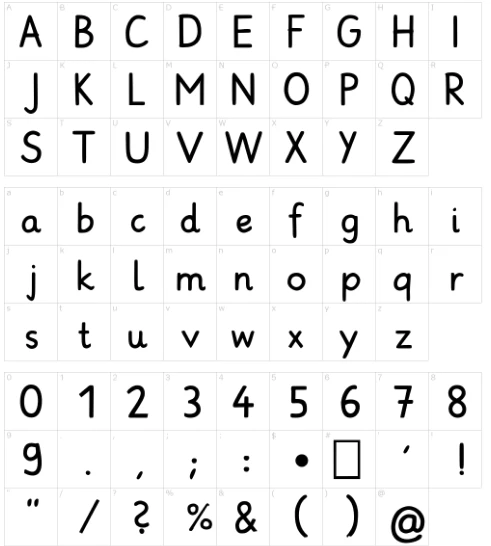
Grundschrift, also known as basis font or ground script, is a reduced form of handwriting that is officially endorsed by the German National Primary Schoolteachers’ Union. If implemented nationally, it would replace the three separate German cursives now taught in schools: Lateinische Ausgangsschrift (established in 1953), Schulausgangsschrift (1968), and Vereinfachte Ausgangsschrift (1969), resulting in a standardized handwriting system in German schools.
In contrast to cursive script, where letters are connected together in a flowing motion, Grundschrift characters are written separately as block letters. Christian Urff created and shared the Font. Grundschrift completely supports basic Latin and Euro languages. TTF and OFT files are available for the lovely Script and Handwritten font. The Font is compatible with Windows, Mac OS X, Linux, Cricut, Silhouette, and other cutting machines. Basque, Catalan, Cornish, Croatian, Czech, Danish, Dutch, Embu, English, Esperanto, Estonian, Faroese, Filipino, Finnish, French, Galician, German, Hungarian, and others are among the languages supported by the Font.
Grundschrift is perfect for branding, logo design, stationery, business cards, signage, flyers, and brochures, among other things. Weddings, events, real estate, architects, legal businesses, florists, gardeners, cosmetics artists, travel, hotels, musicians, and so on will all benefit from this typeface. The typeface is also ideal for many types of handwriting projects.